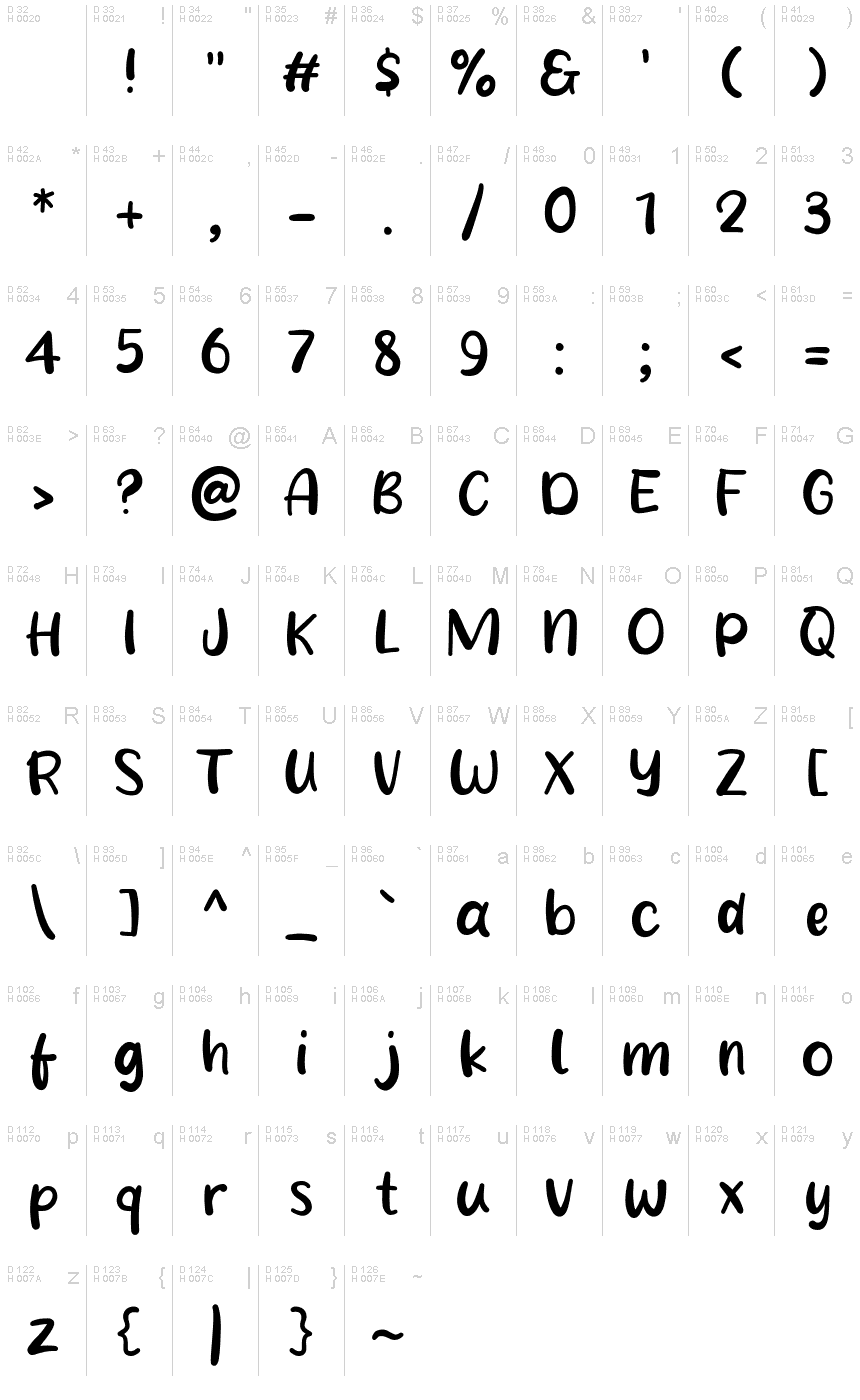
Winter Drink
Winter Drink, crafted by the talented Khurasan, is a display font that exudes charm and playfulness with its cartoon style and semi-bold weight. Its whimsical curves and bouncy baseline capture the essence of a joyful winter spirit, making it an excellent choice for projects that require a touch of warmth and friendliness. The handcrafted aesthetic of Winter Drink adds a personal touch to any design, from holiday greetings to themed advertising campaigns.
This font's approachable character ensures it stands out in creative endeavors that aim to engage and delight audiences with its inviting presence.